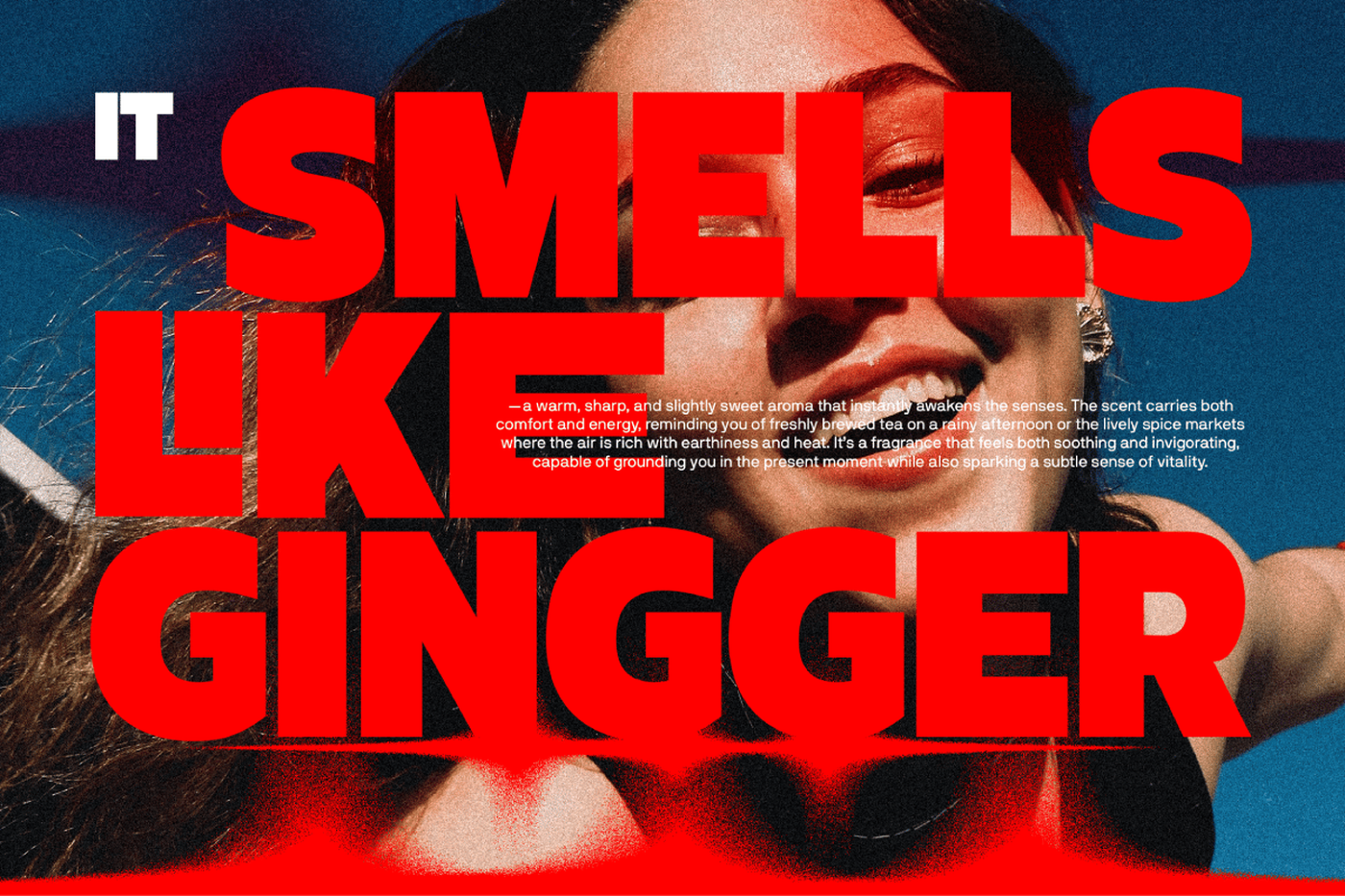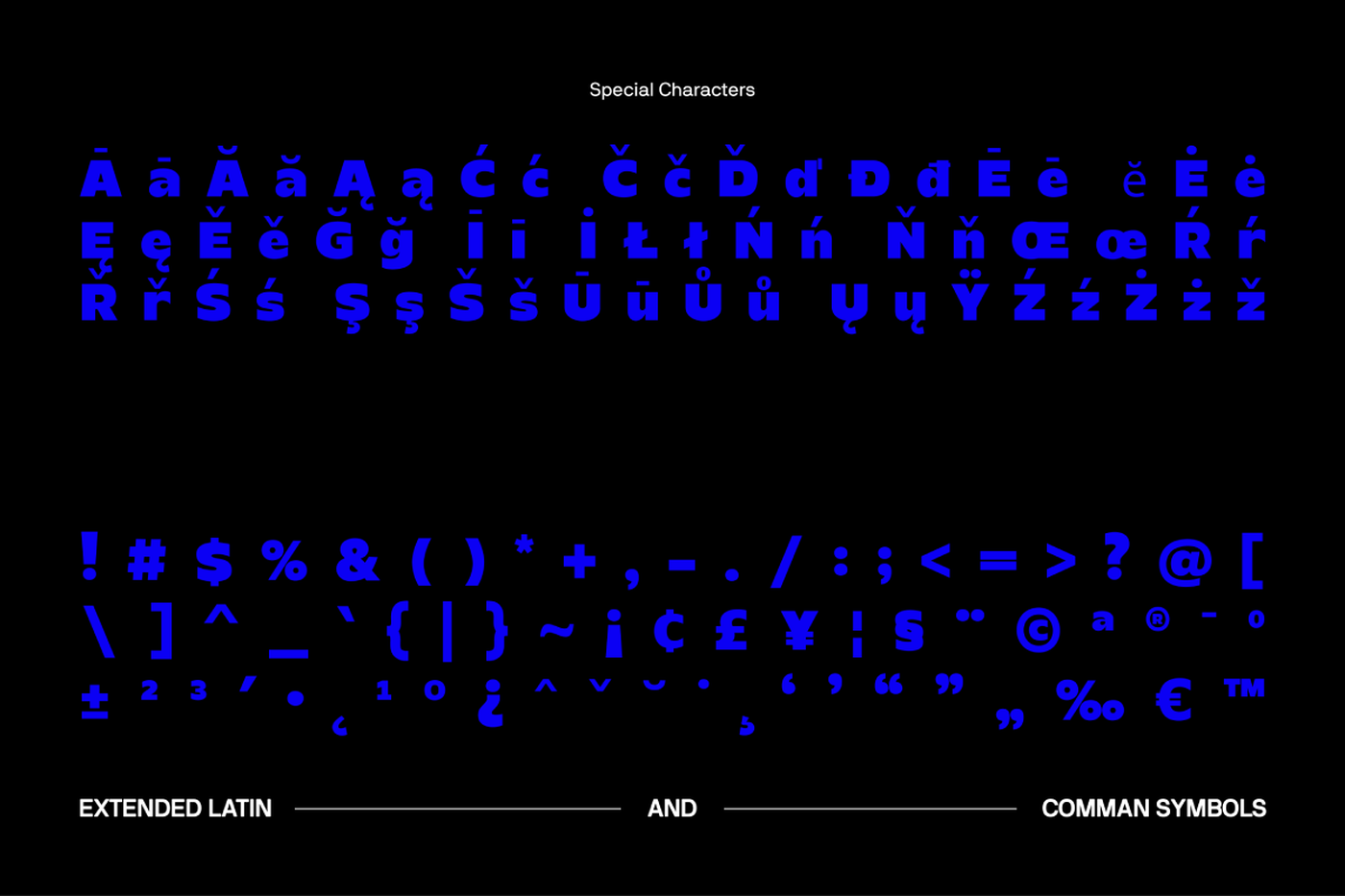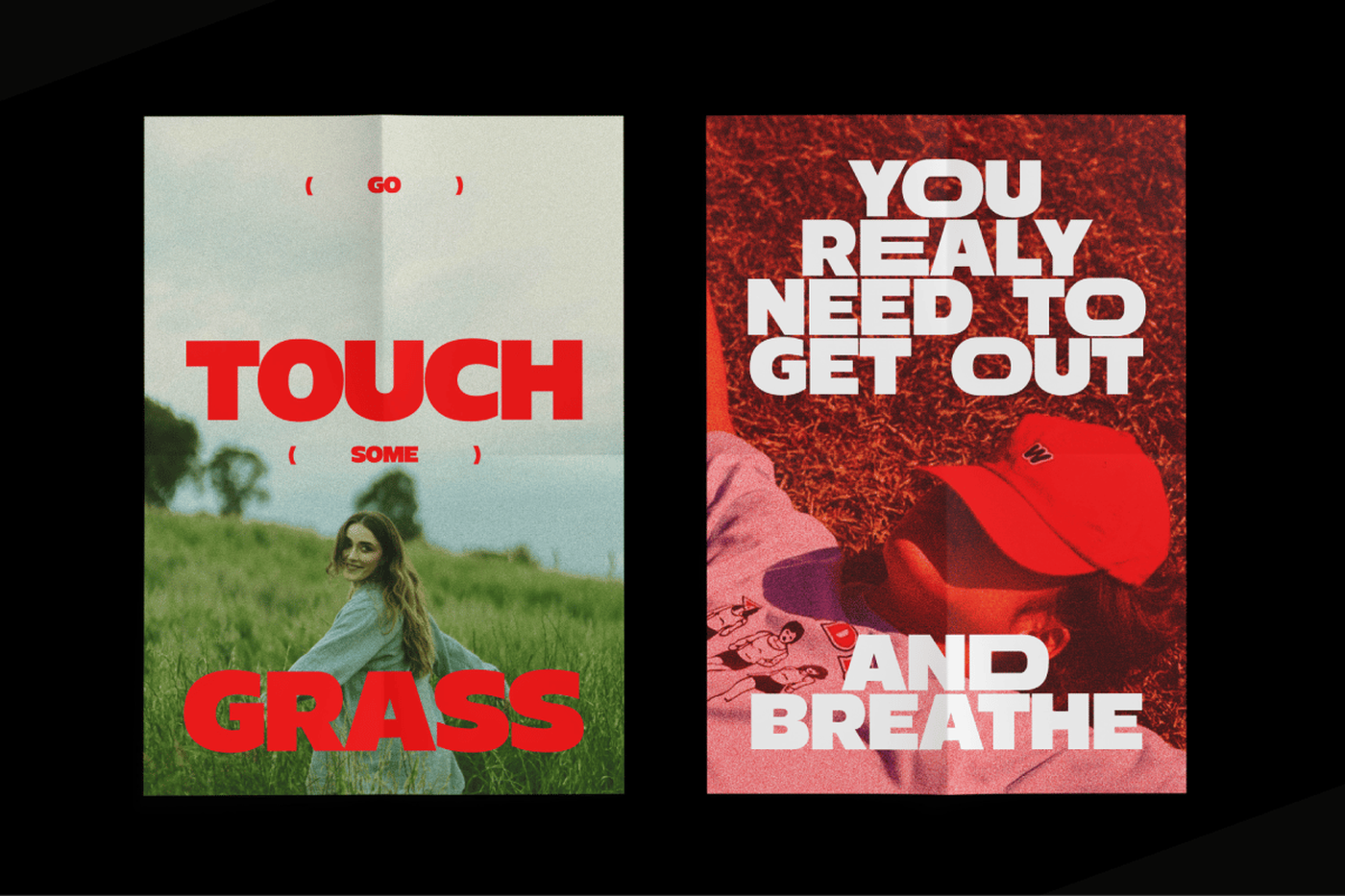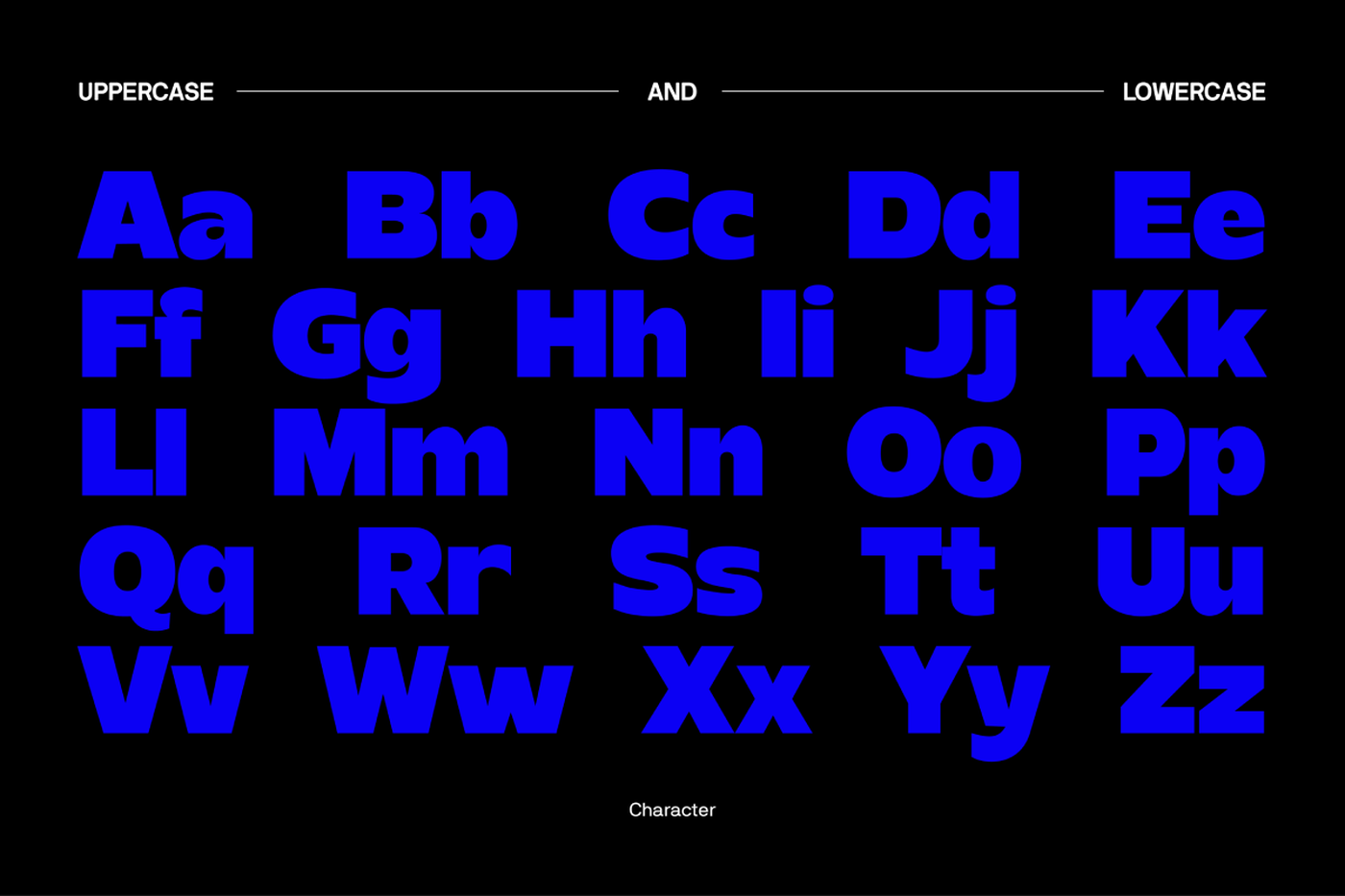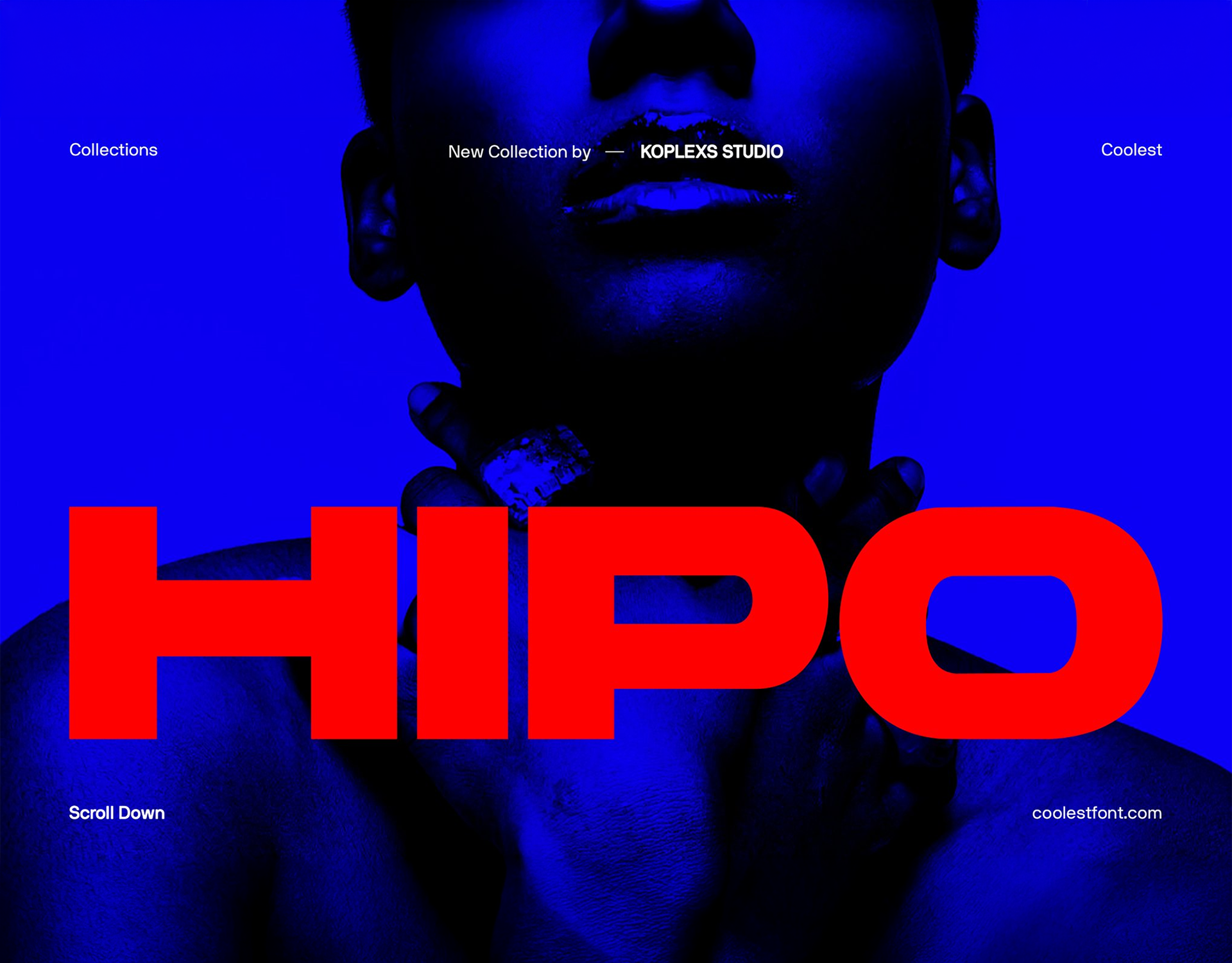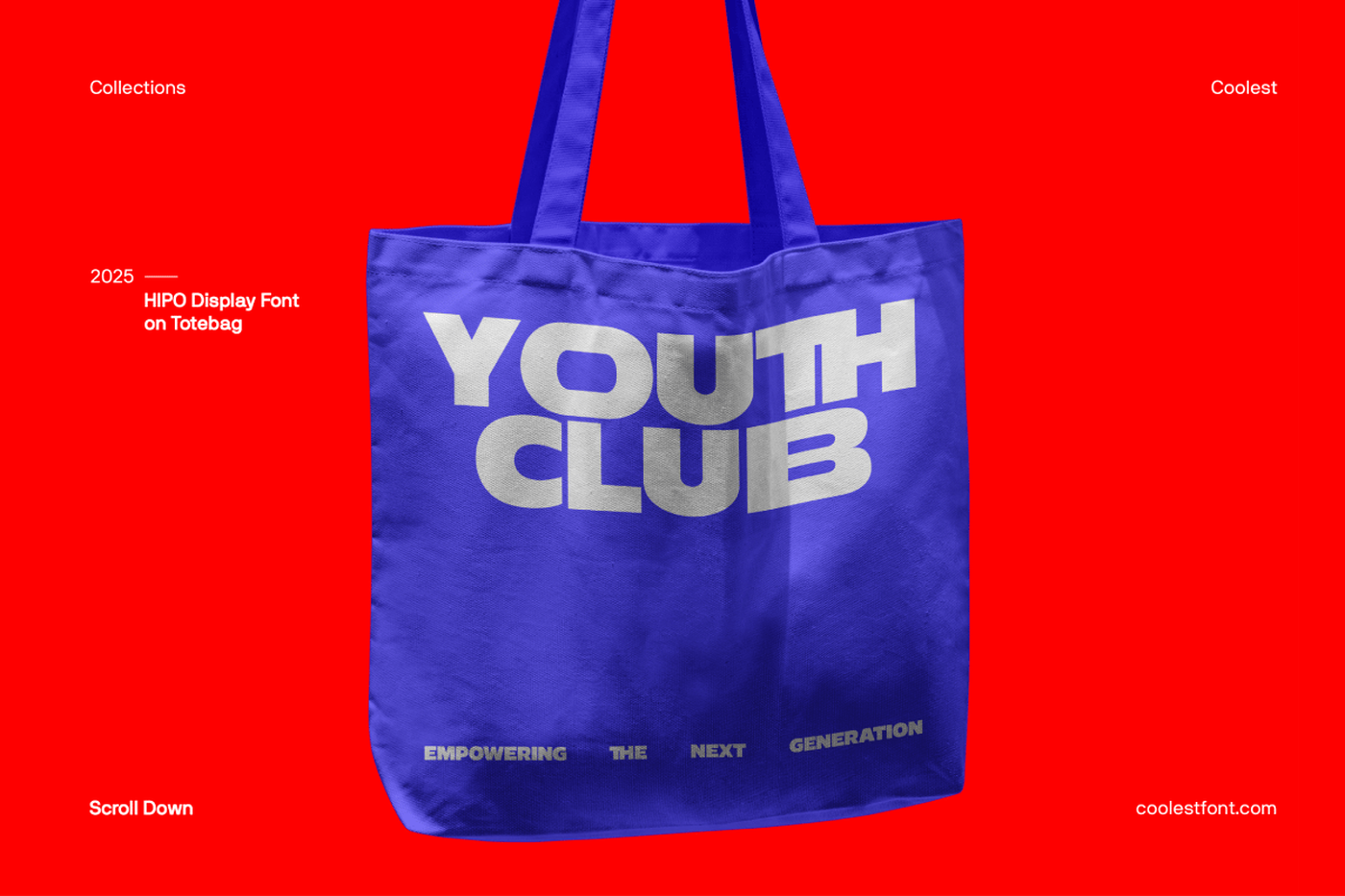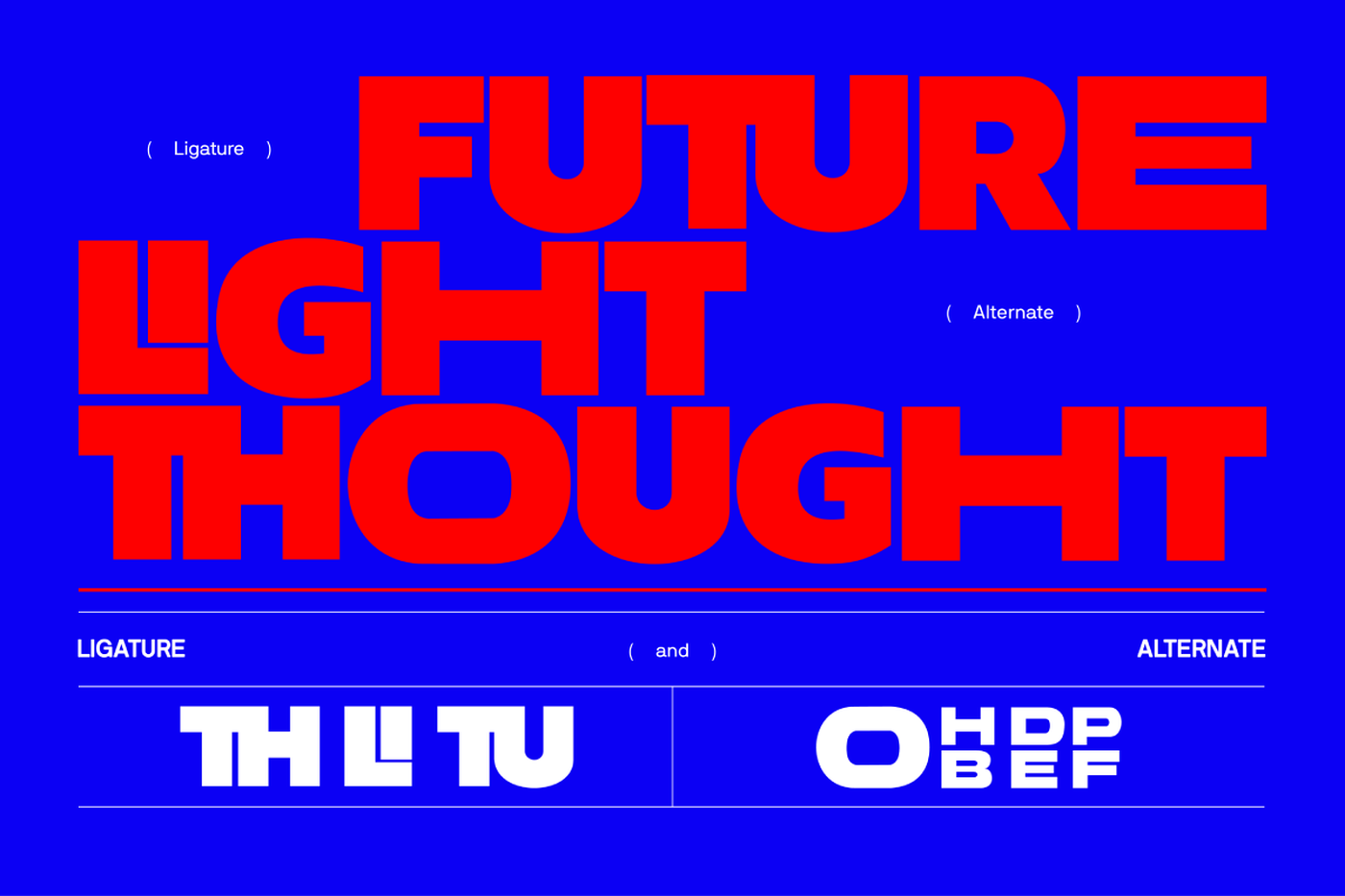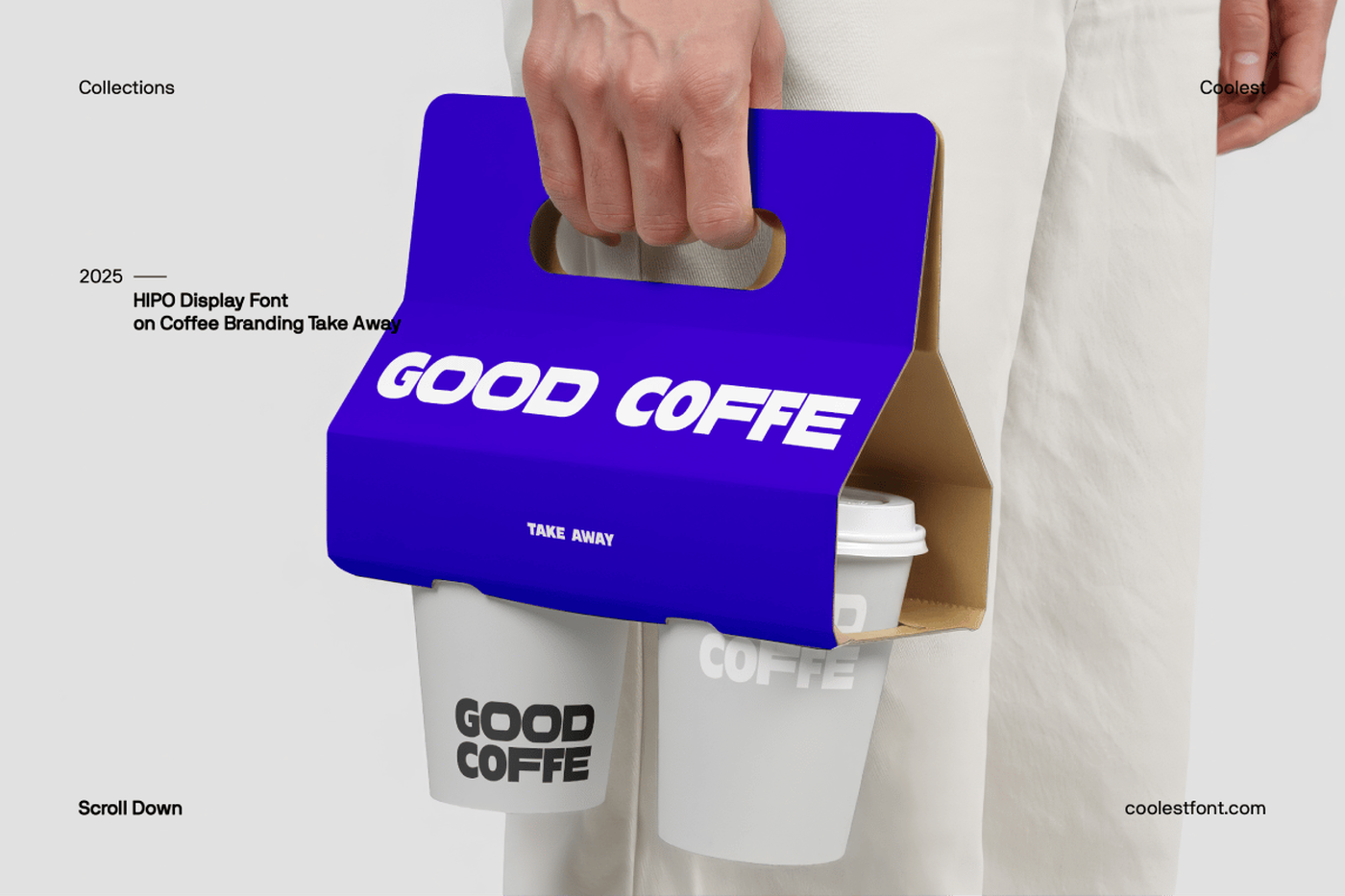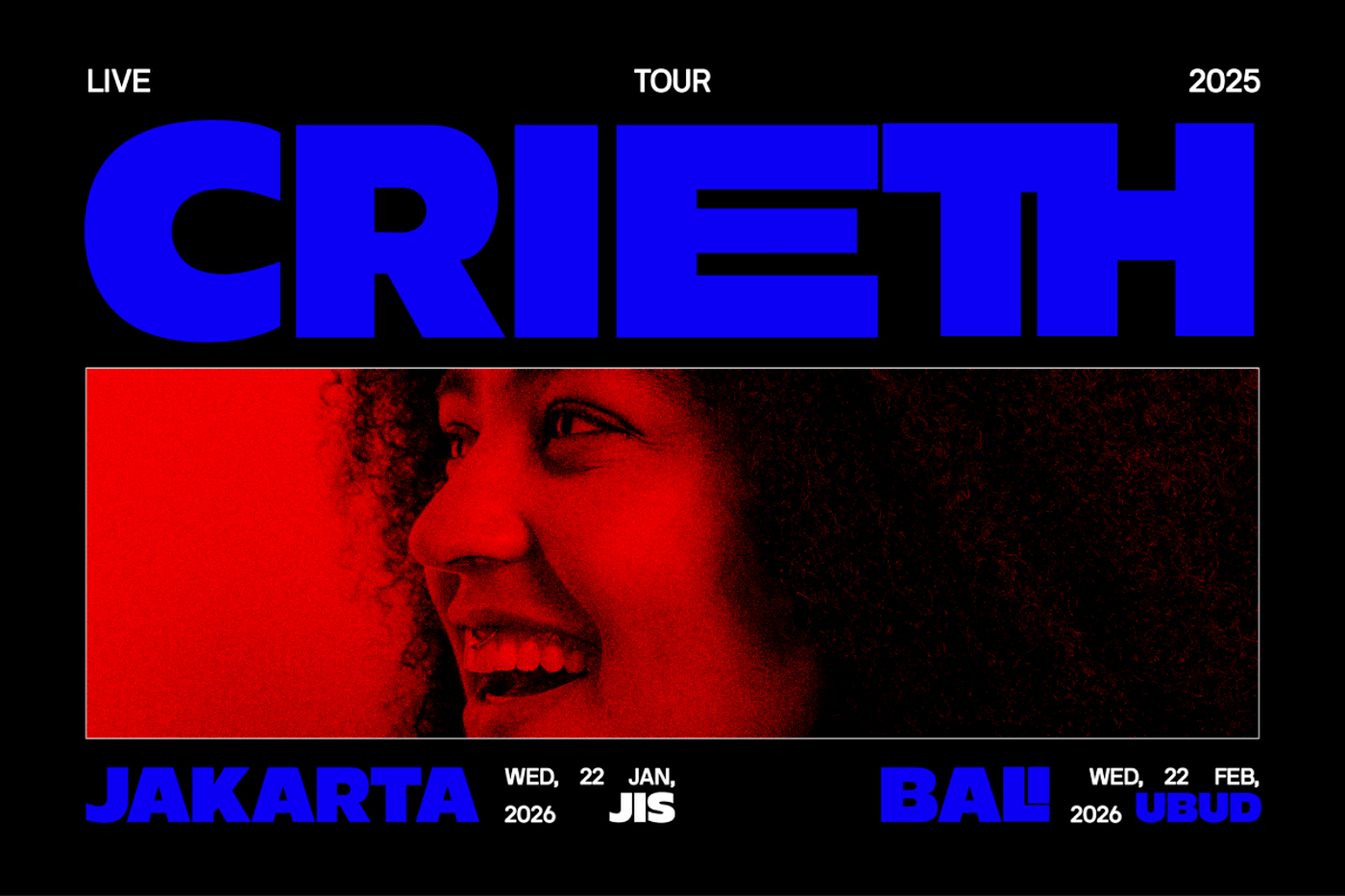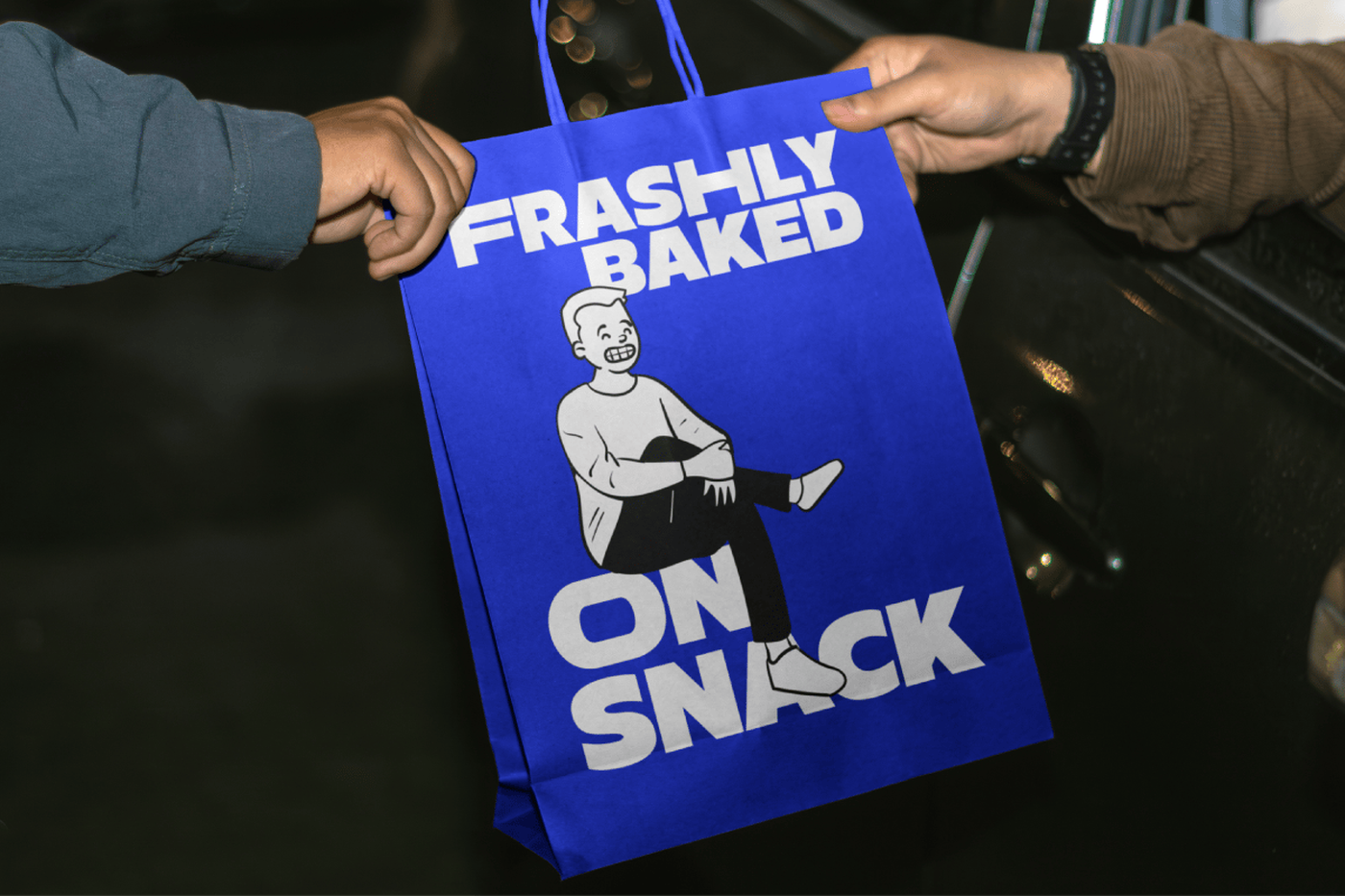
Hipo - Bold Sans Serif Font
Hipo is a bold sans serif font crafted for modern branding and creative design. With its strong geometric shapes and clean lines. This branding font combines the power of a bold font with the refinement of an elegant luxury font, making it one of the coolest fonts for professionals who want both clarity and style.. If you’re looking for modern fonts, aesthetic fonts, or luxury fonts that stand out, Hipo brings bold elegance to your creative toolkit.